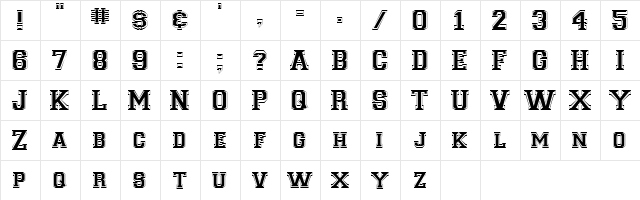
LetterSweater Outline SSi Normal
Design Context for LetterSweater Outline SSi Typeface
LetterSweater Outline SSi brings ornamental detail and strong personality to headlines and identities, where visual impact matters more than quiet functionality.
Font Pairing: Pair with a clean neutral sans-serif for body copy to let LetterSweater Outline SSi's character lead without overwhelming the composition.
Pro Tip: Treat LetterSweater Outline SSi as the centrepiece of your typographic hierarchy. One strong heading set in a decorative face can carry an entire layout.